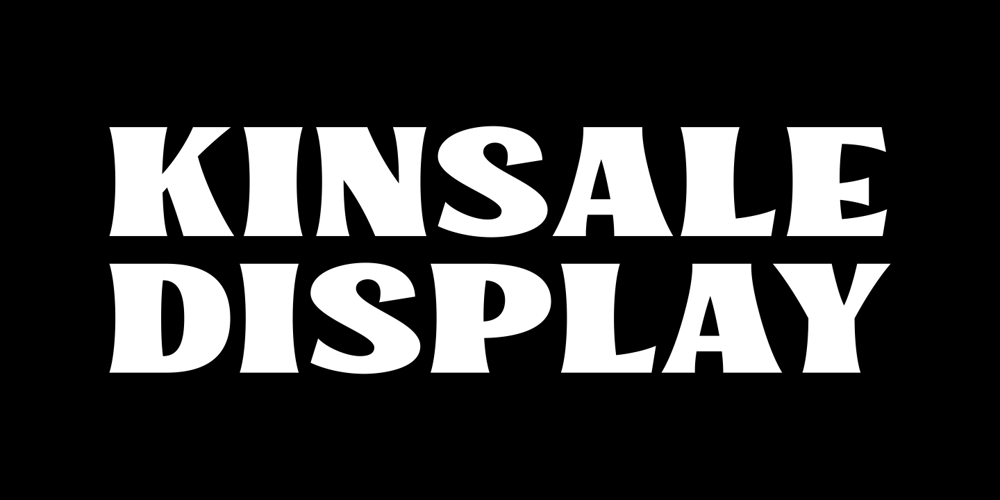
Kinsale Display Font Family was designed by Fahrizal Tawakkal and published by Fontdation. Kinsale Display contains 2 styles and family package options. Introducing our new font Kinsale Display. A bold and strong looking display font that not only heavily inspired by the vintage/classic letterforms, but also some touch of modern twists and absurdities. Mouse-crafted with high attention to details; clean lines, sharp edges and tempting curves. Its wide and blocky letterforms make Kinsale is a great spacekiller. Suits best for title/headline, logo/logotype, packaging/label designs, etc.Packed with 300+ glyphs, weaponized with standard upper/lower case characters, numerals, punctuations, some multilingual letters, alternate characters, and ligatures. This font is a must have item for your designing arsenal. Get yourself one and start creating something cool!THANKS AND ENJOY!!!